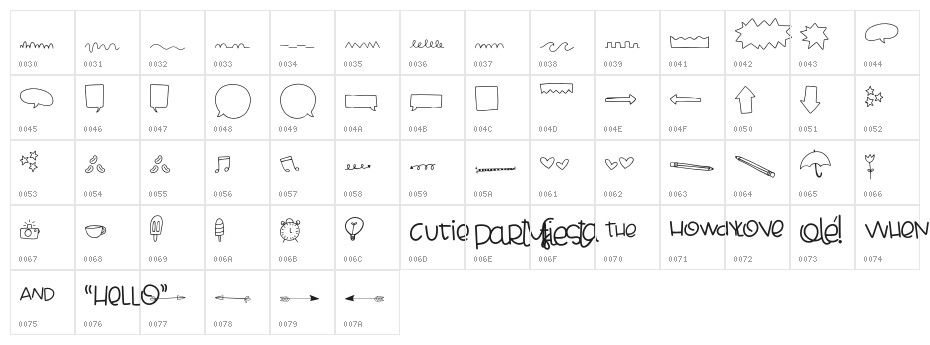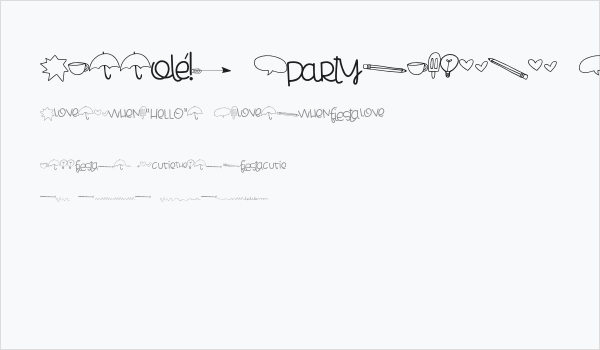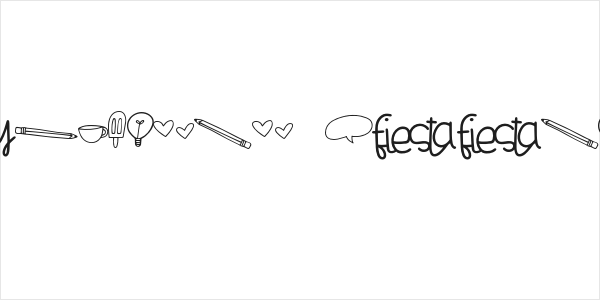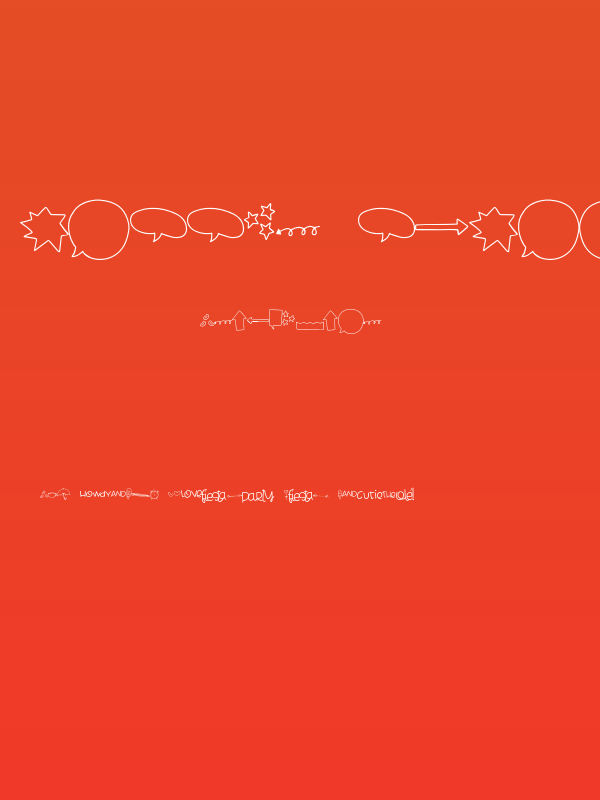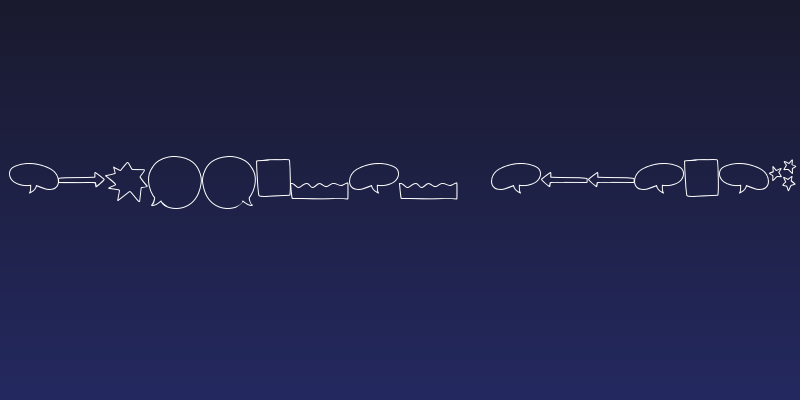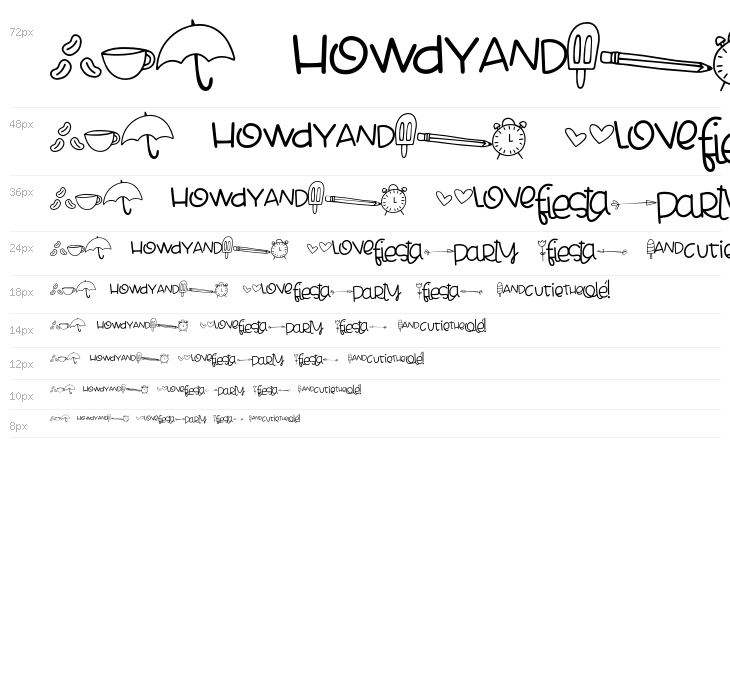
Cheesy Enchilada Doodles Regular Font
Cheesy Enchilada Doodles Regular Description
This font is a playful and whimsical collection of doodles and decorative elements. It features a variety of hand-drawn symbols, including speech bubbles, arrows, stars, musical notes, and everyday objects like pencils, umbrellas, and clocks. The style is casual and fun, with a mix of bold and thin lines that create a lively and dynamic appearance. The characters are irregular and quirky, adding a unique charm to any design. This font is perfect for creative projects that require a touch of humor and lightheartedness.
| Proposed Projects | Ideal for children's books, party invitations, playful branding, and creative social media graphics. |